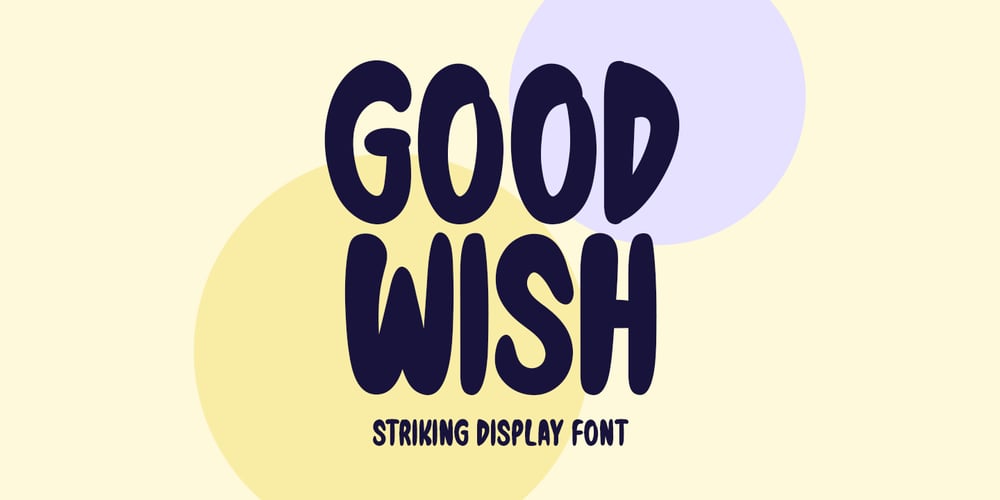
Good Wish Font Family was designed by Md Shohail Bhuian and published by Seemly Fonts. Good Wish contains 1 styles and family package options. Good Wish is a striking display font. It can easily be matched to an incredibly large set of projects, so add it to your creative ideas and notice how it makes them stand out!